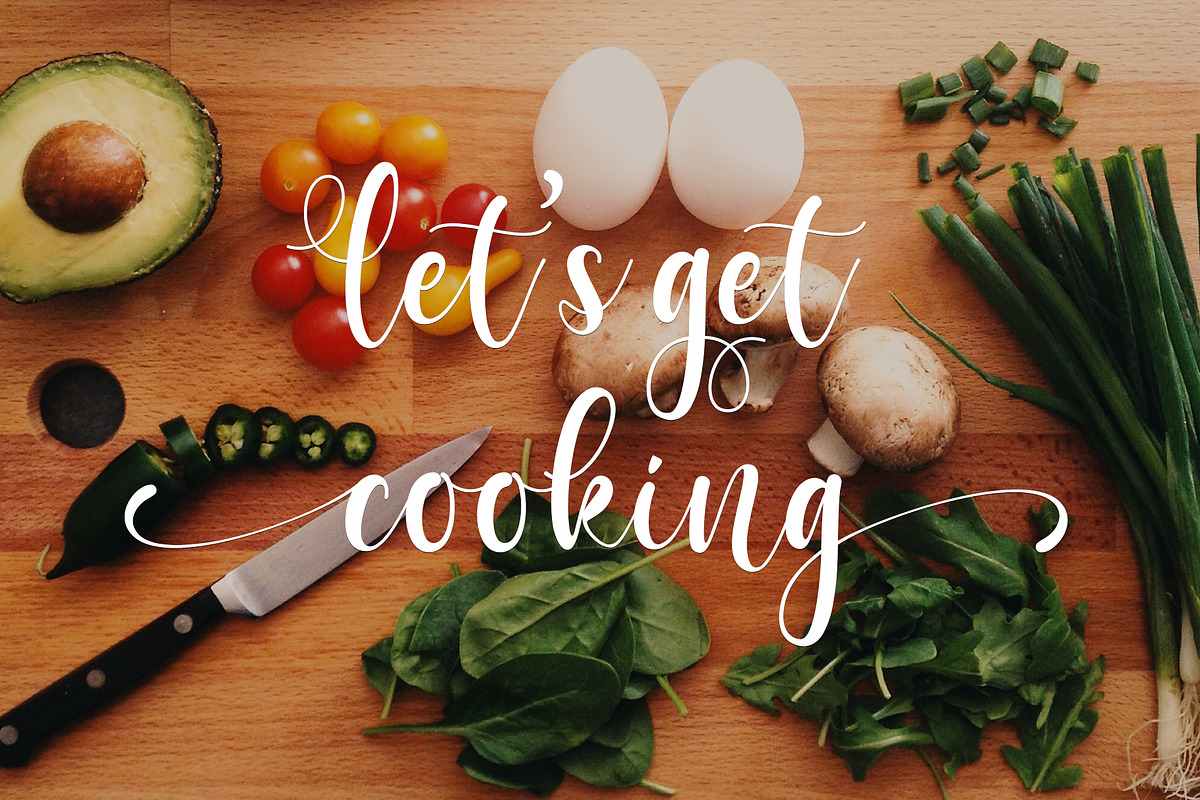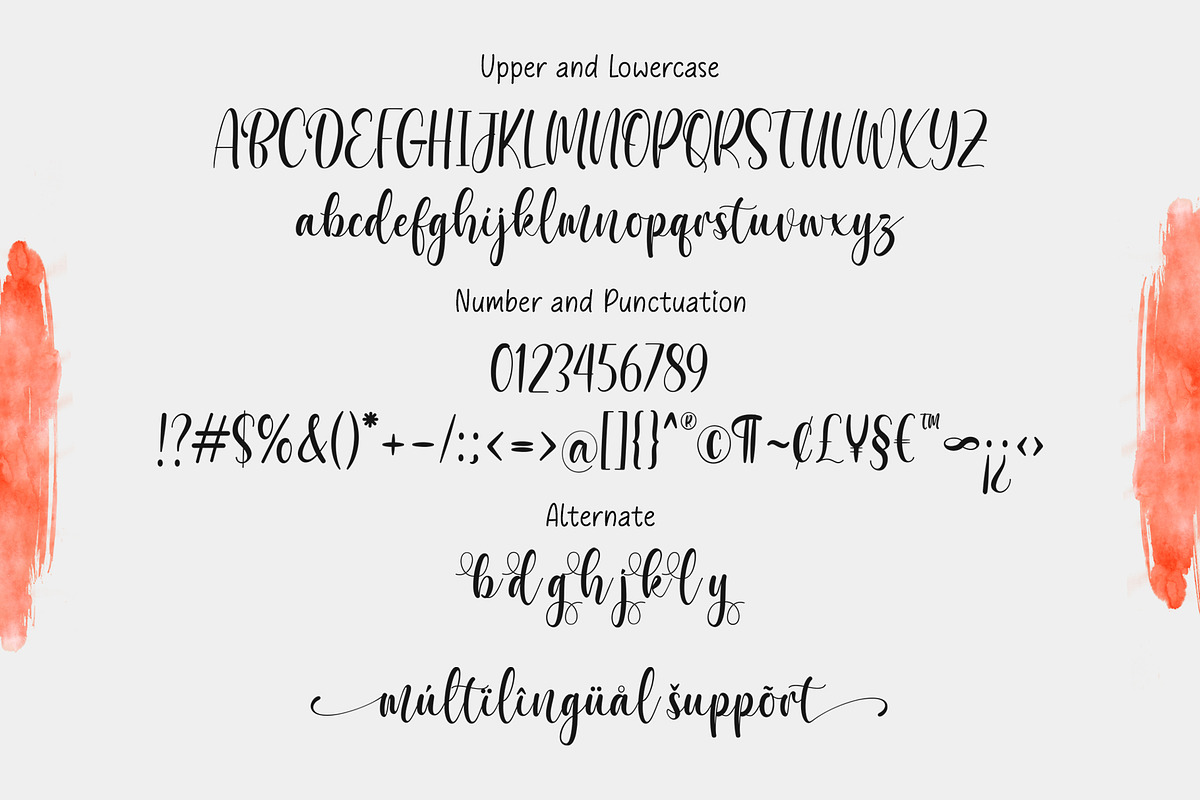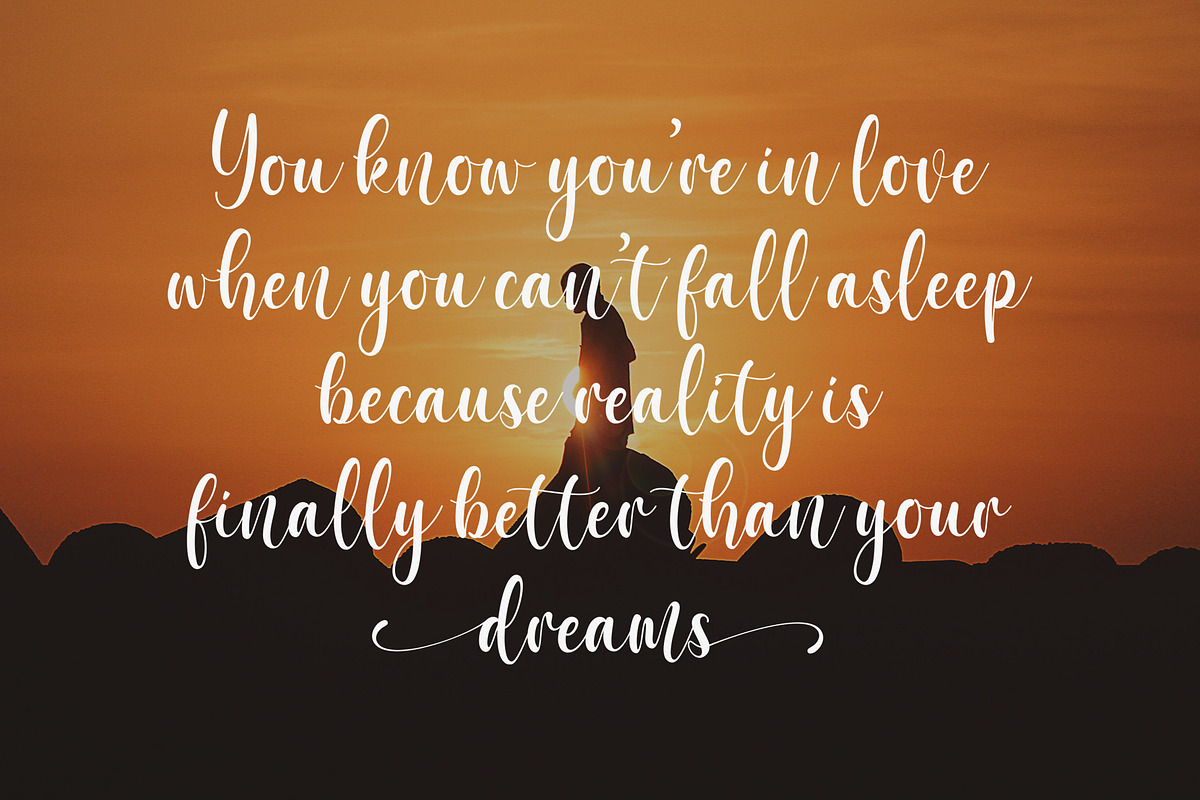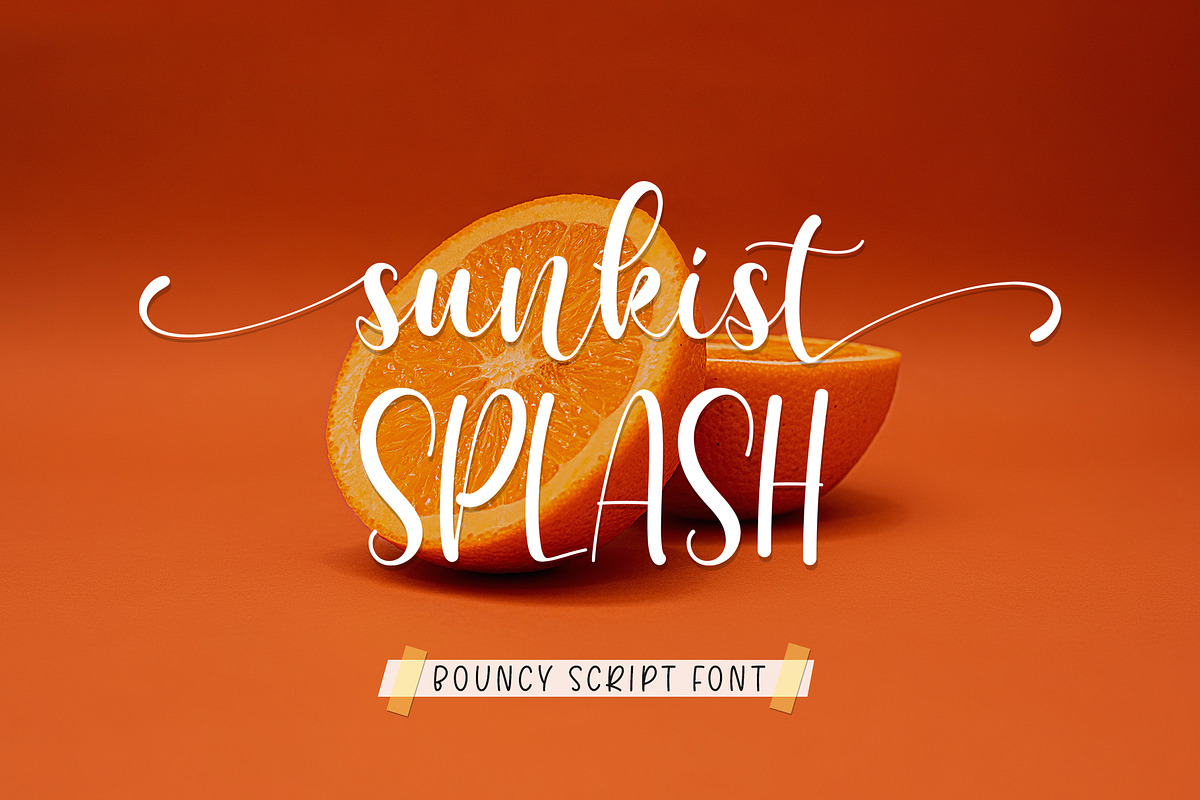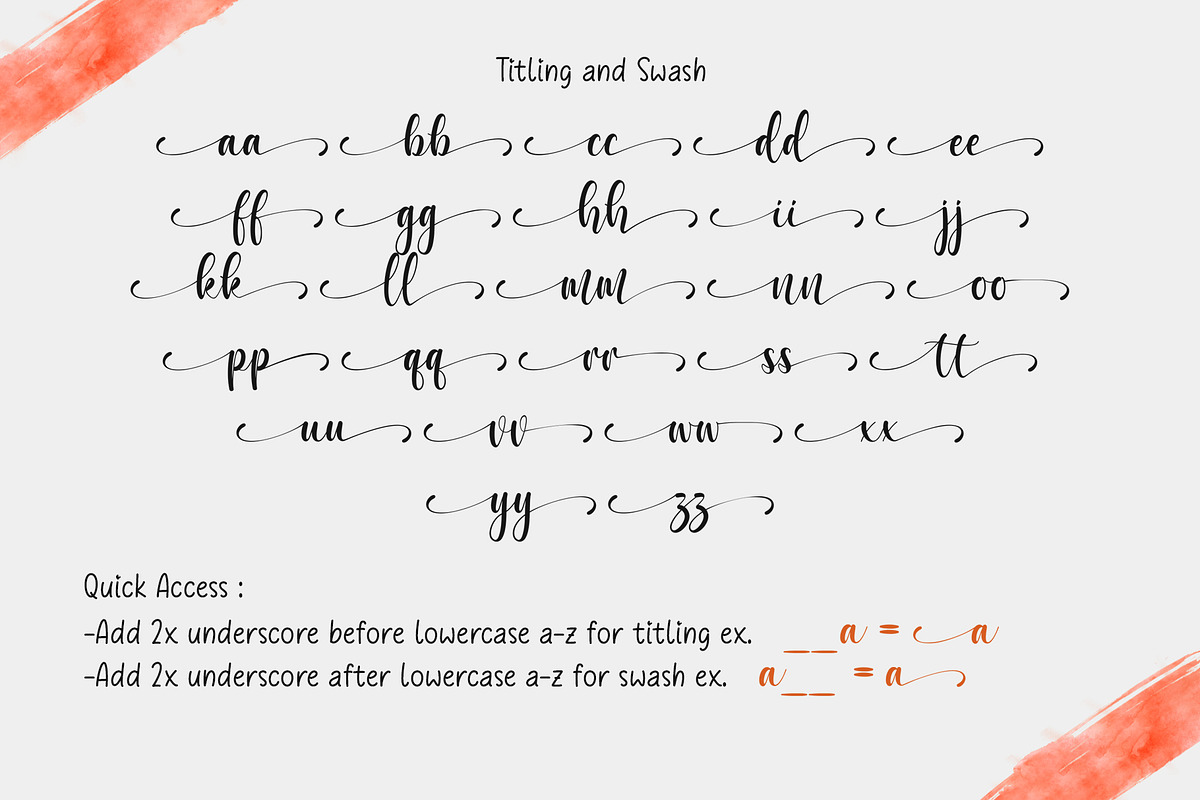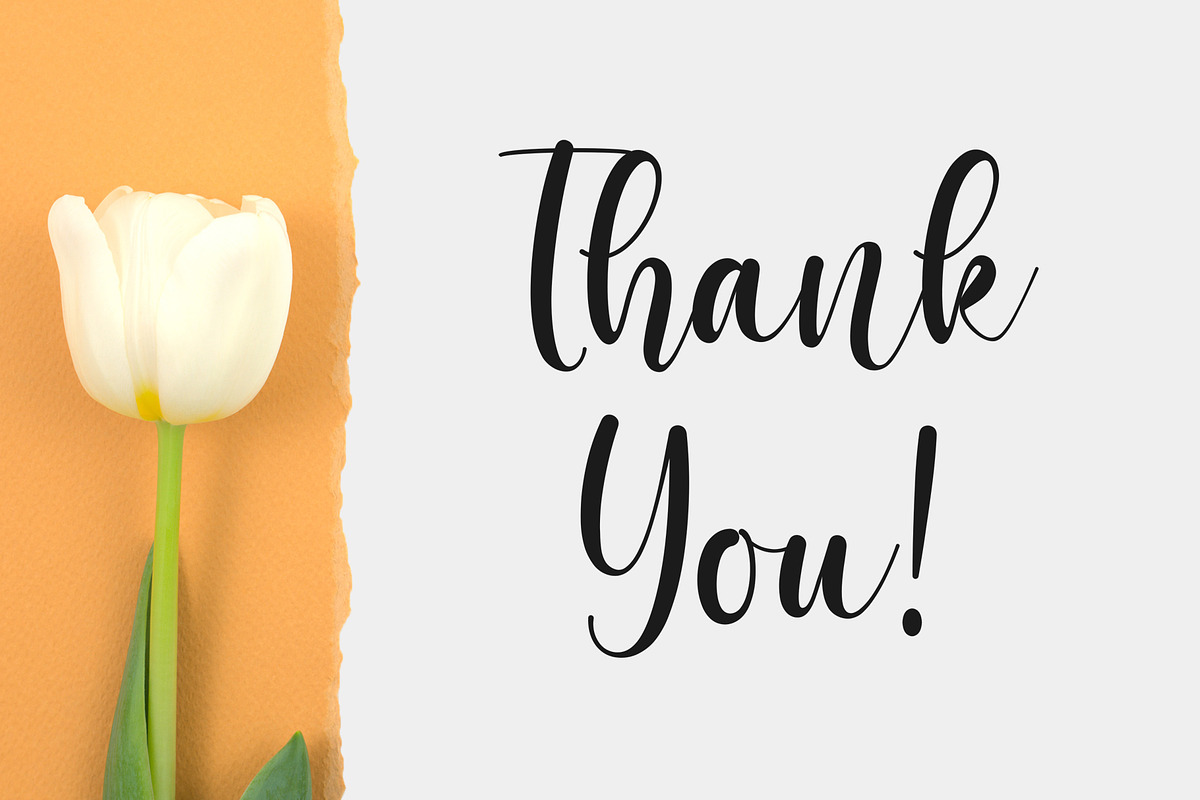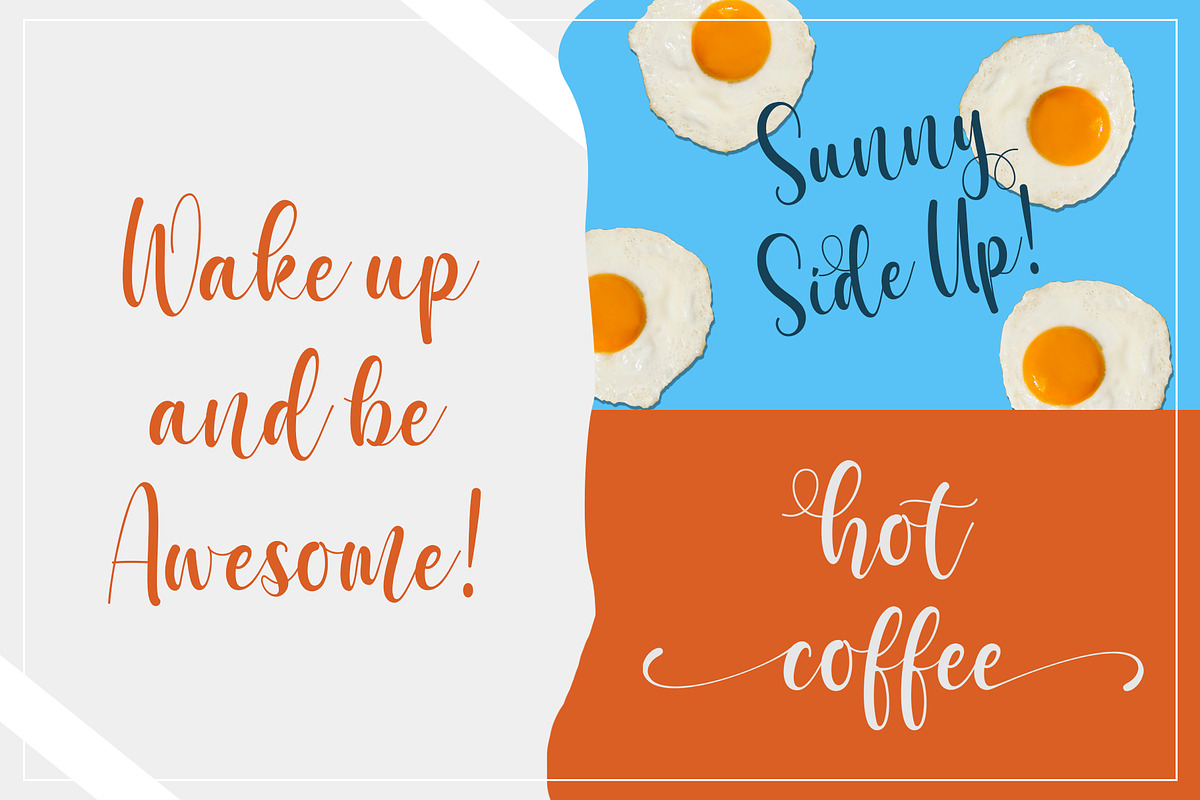
Sunkist Splash | Bouncy Script
Sunkist Splash is clean and beauty bouncy script font. It’s the perfect font for branding, wedding invitations, stationery, photography, social media posts, product packaging, greeting cards, and much more!
- Titling
Quick access
- Titling: Add 2x underscore before lowercase a-z. Ex: __a
- Swash: Add 2x underscore after lowercase a-z. Ex: a__